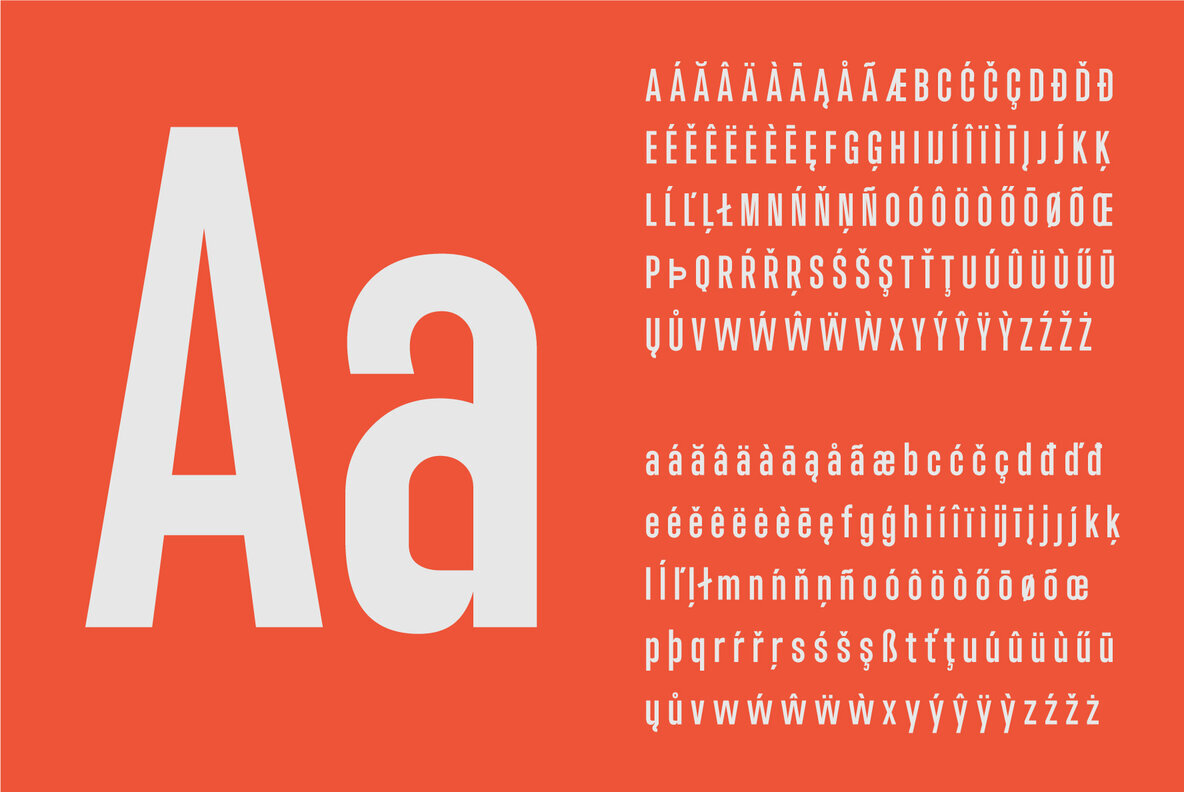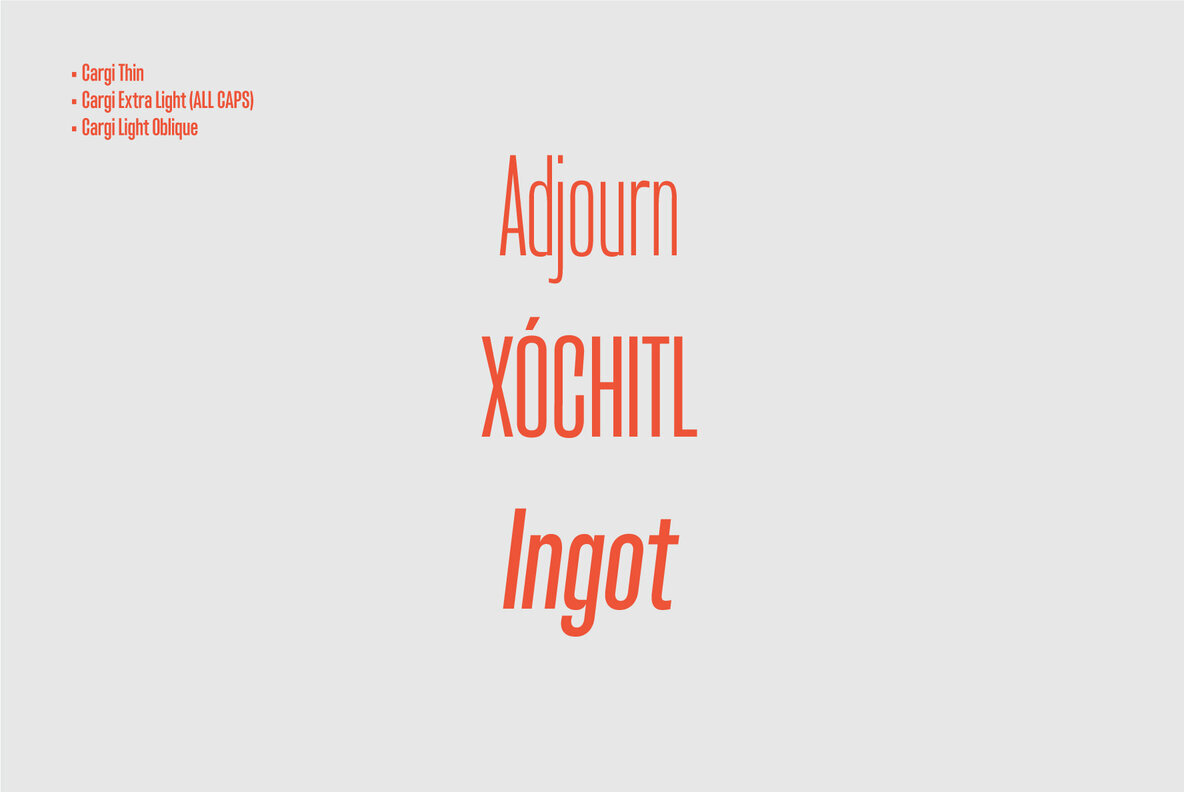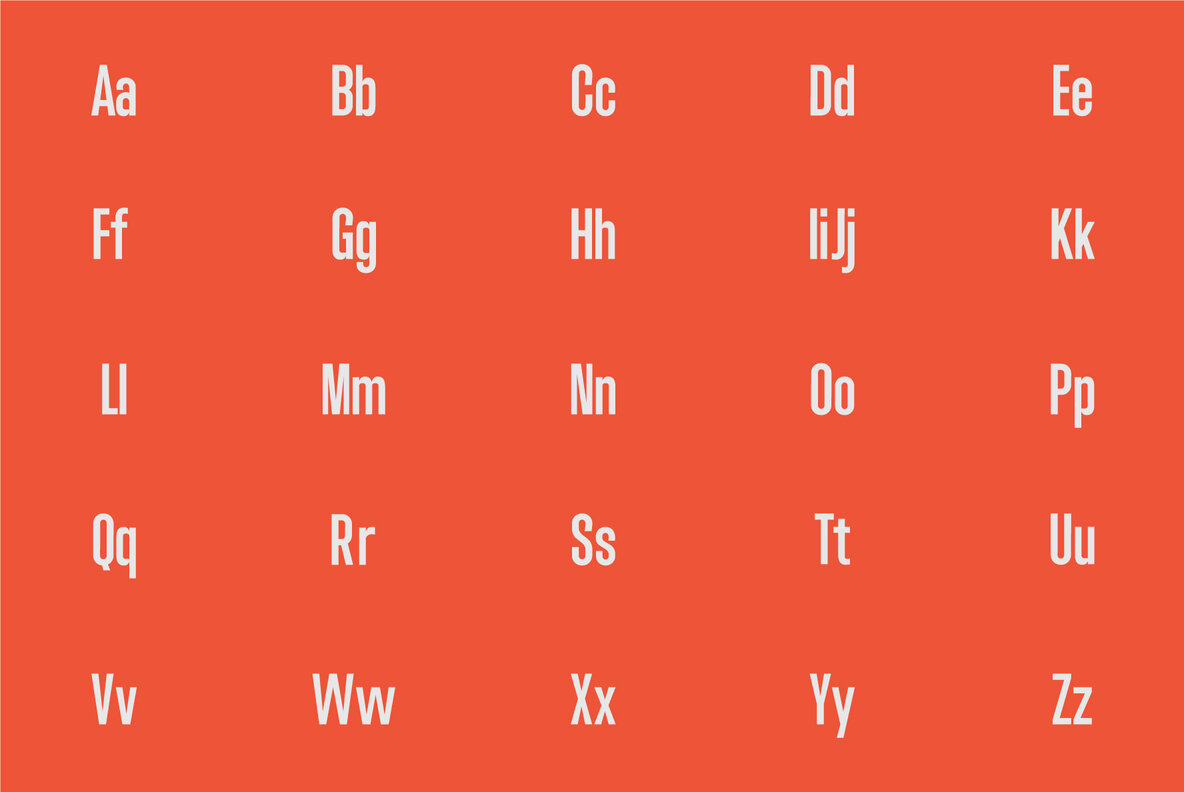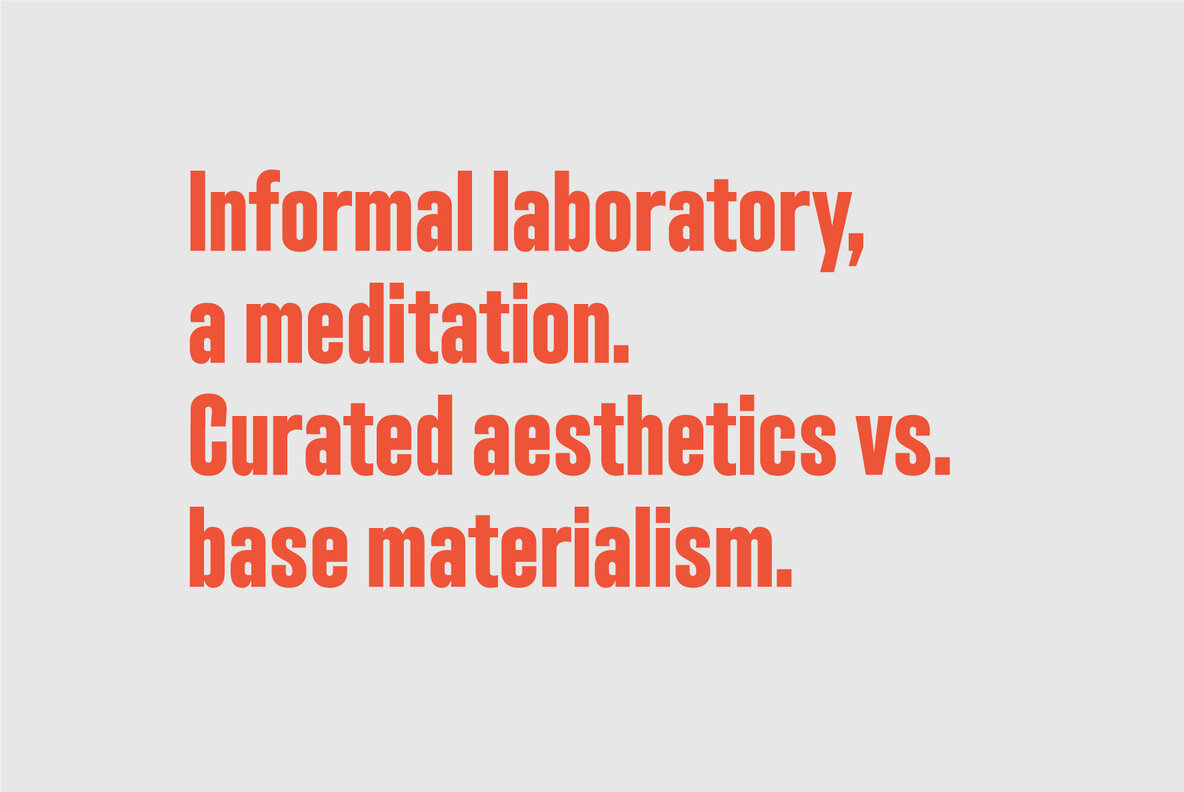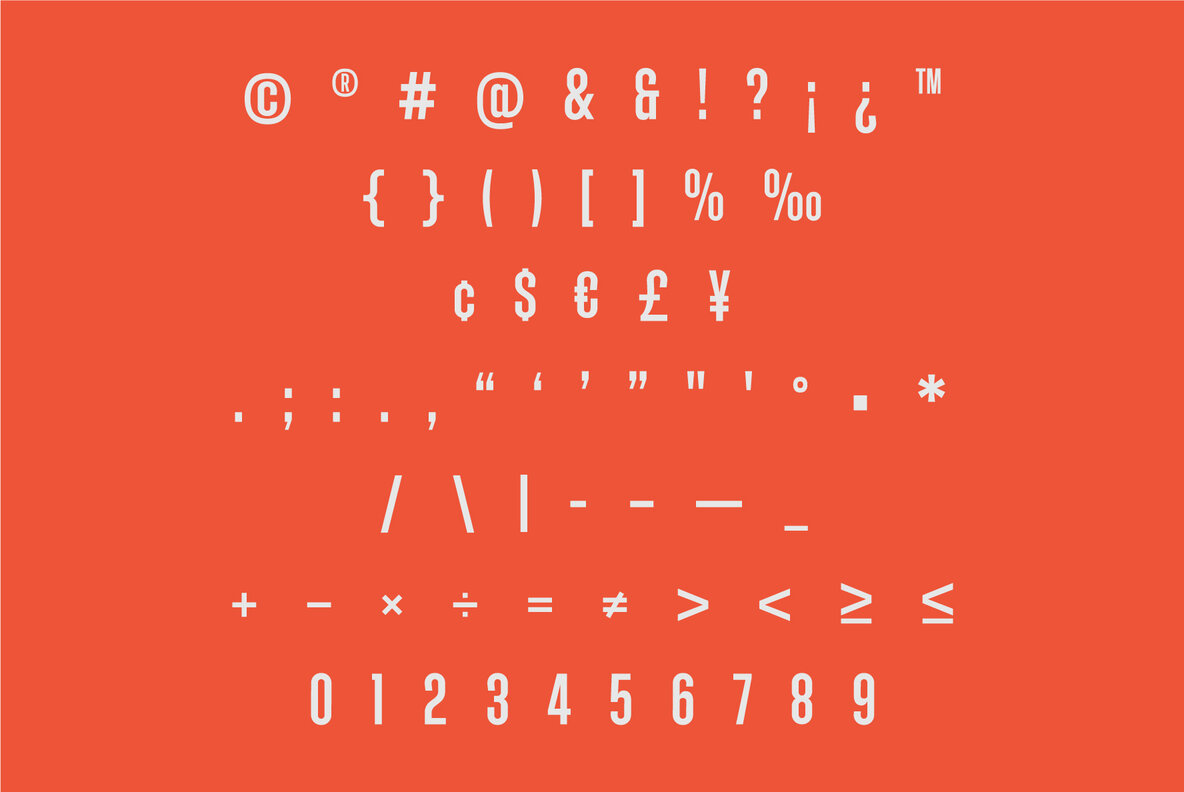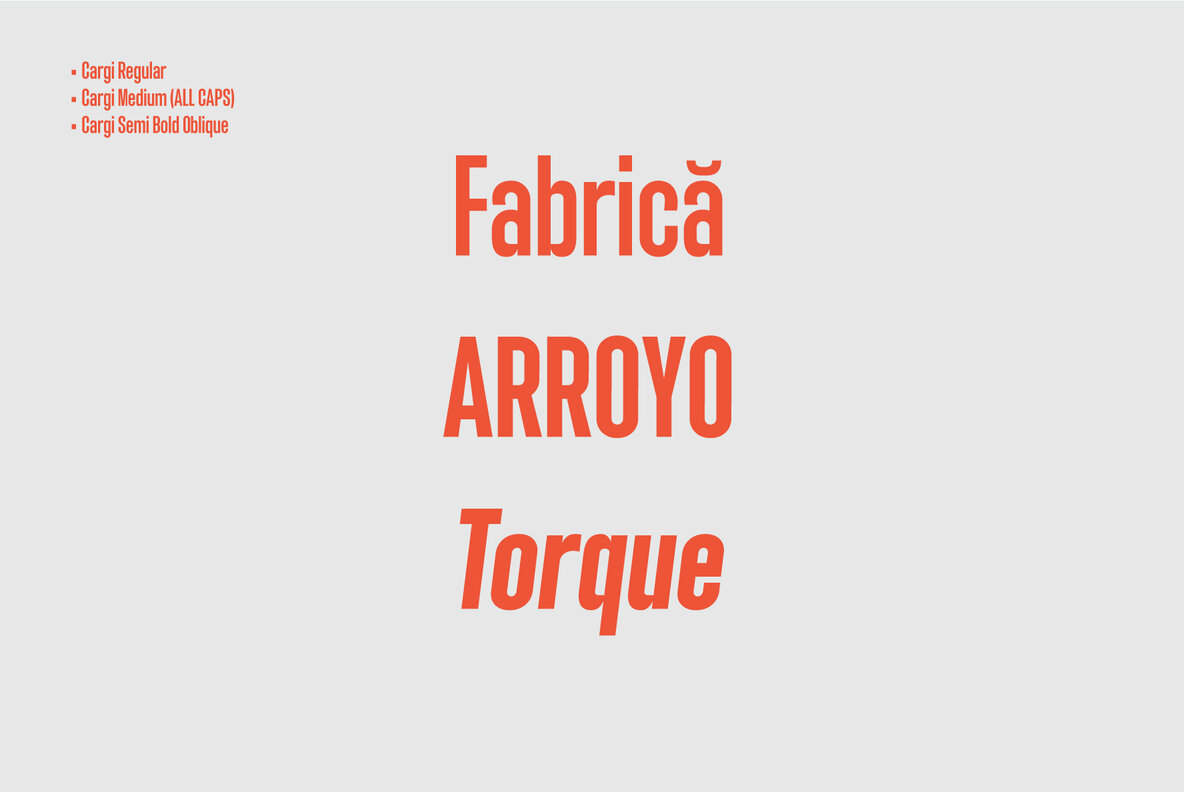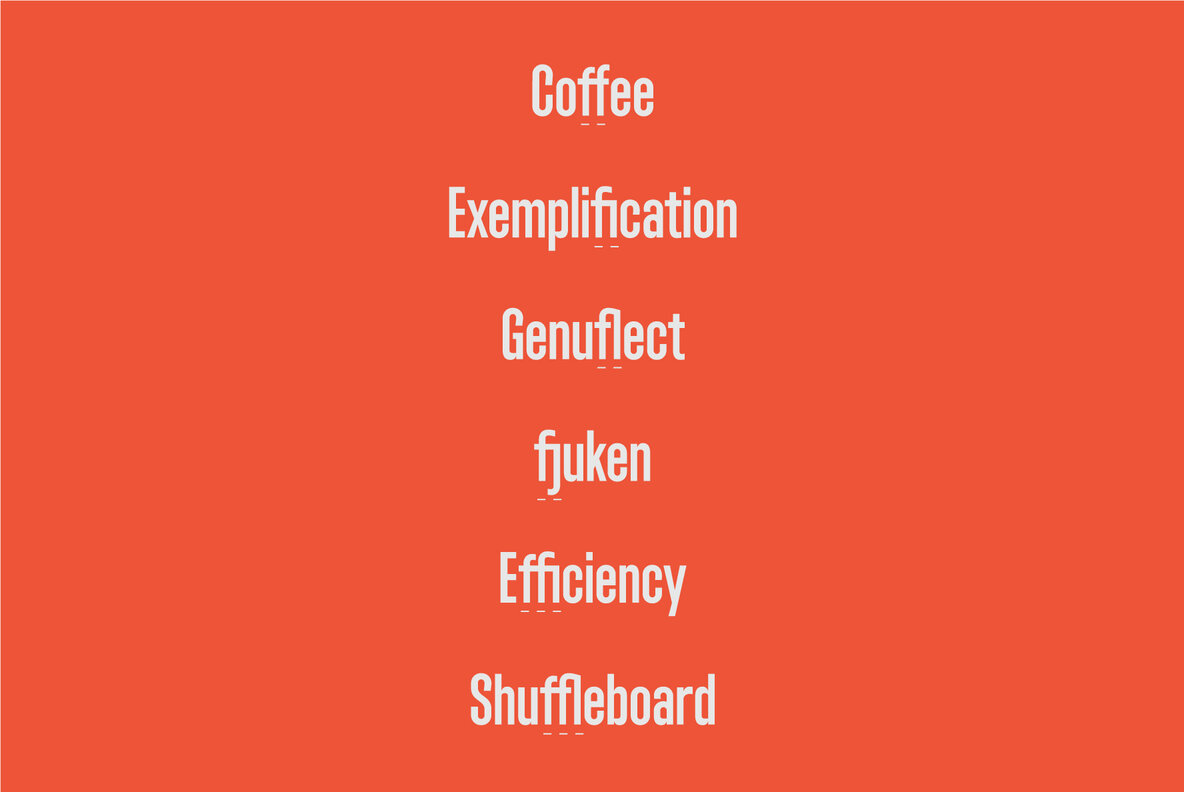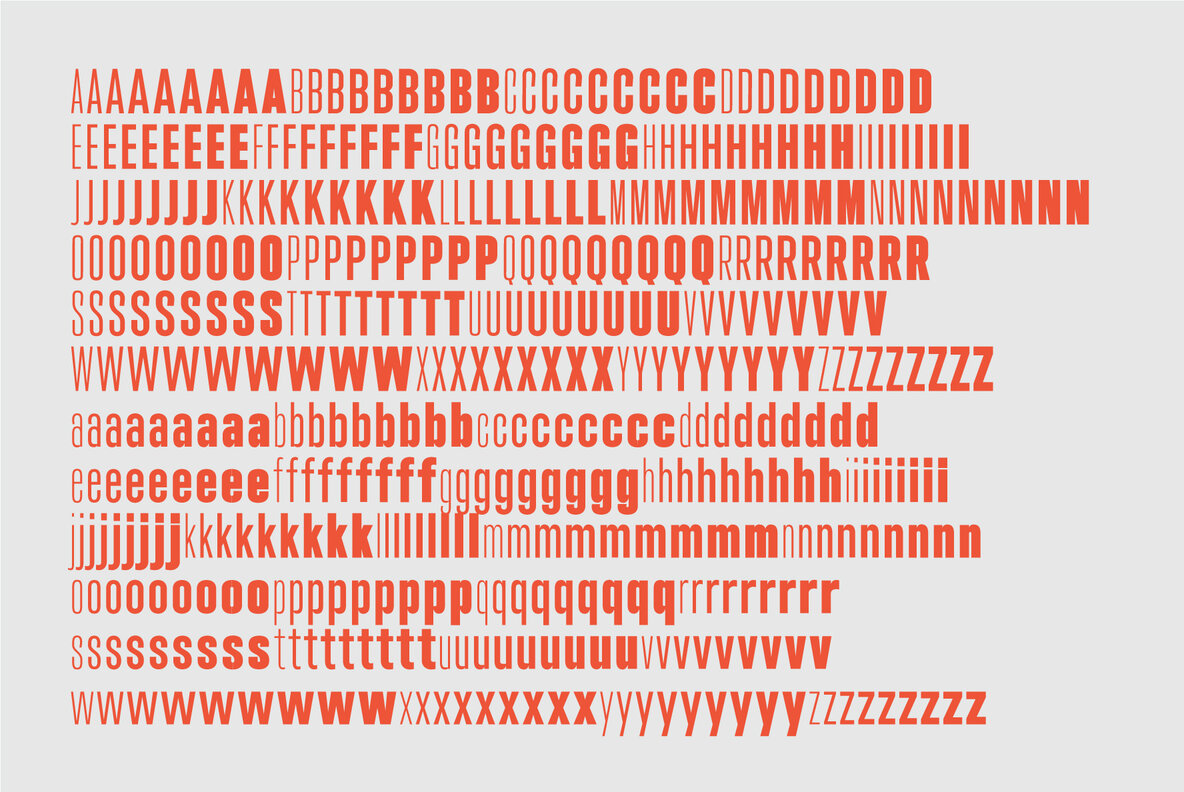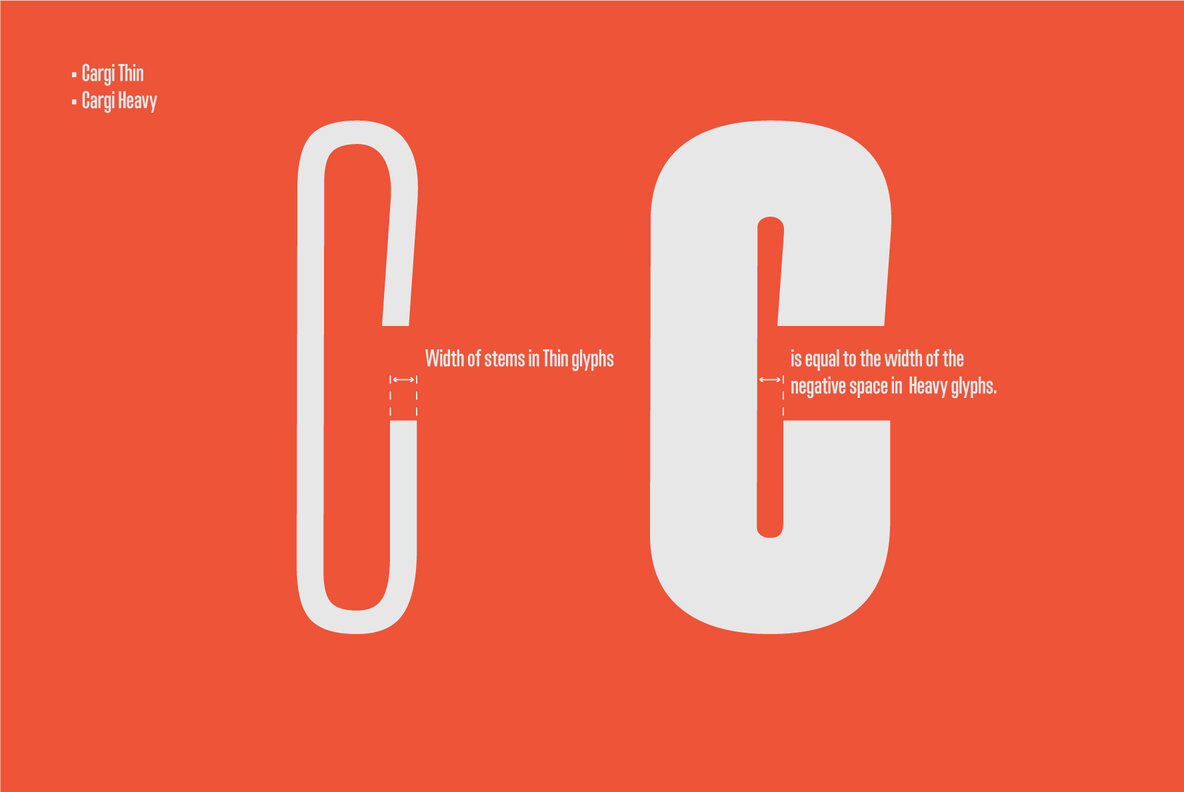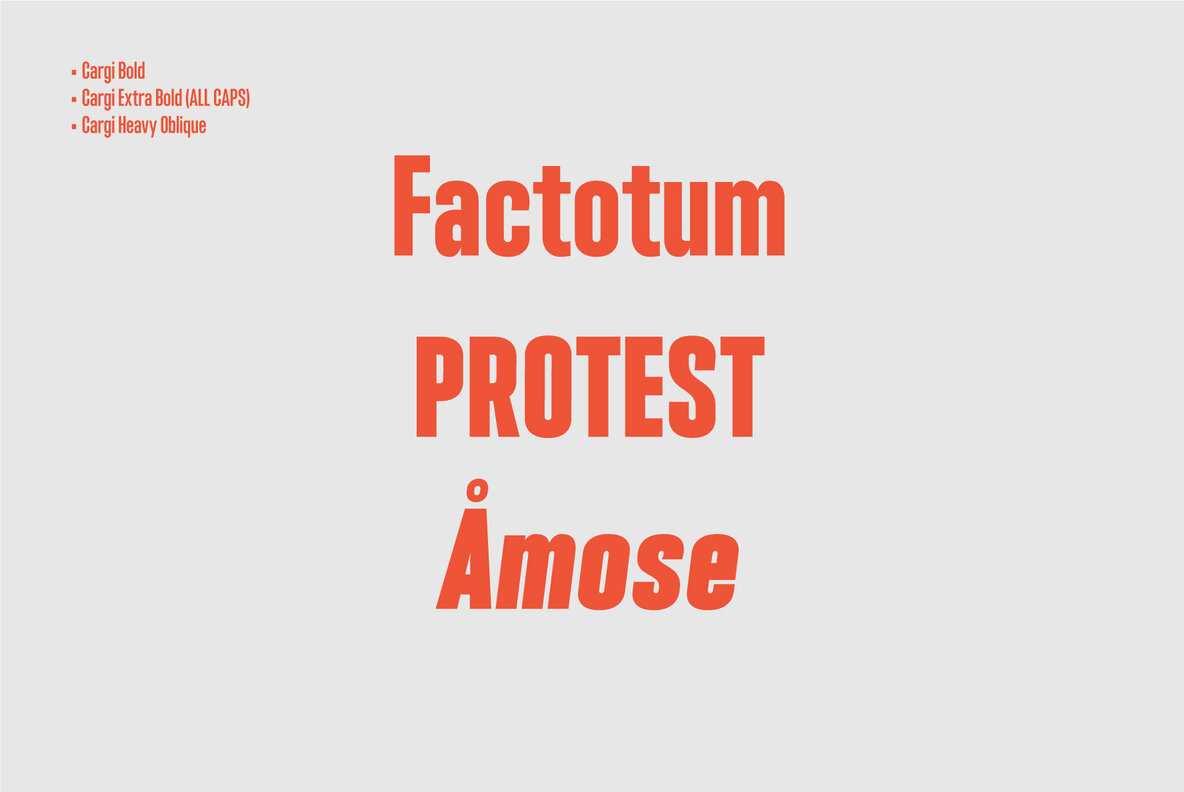
Cargi Font
A condensed neo-grotesque typeface with a quirky personality. Cargi contains 9 weights, obliques and a variable version. Low contrast and clean forms create legibility at small sizes, but display uses are where the real character of Cargi comes out to play. More than 300 glyphs to support 100+ languages.